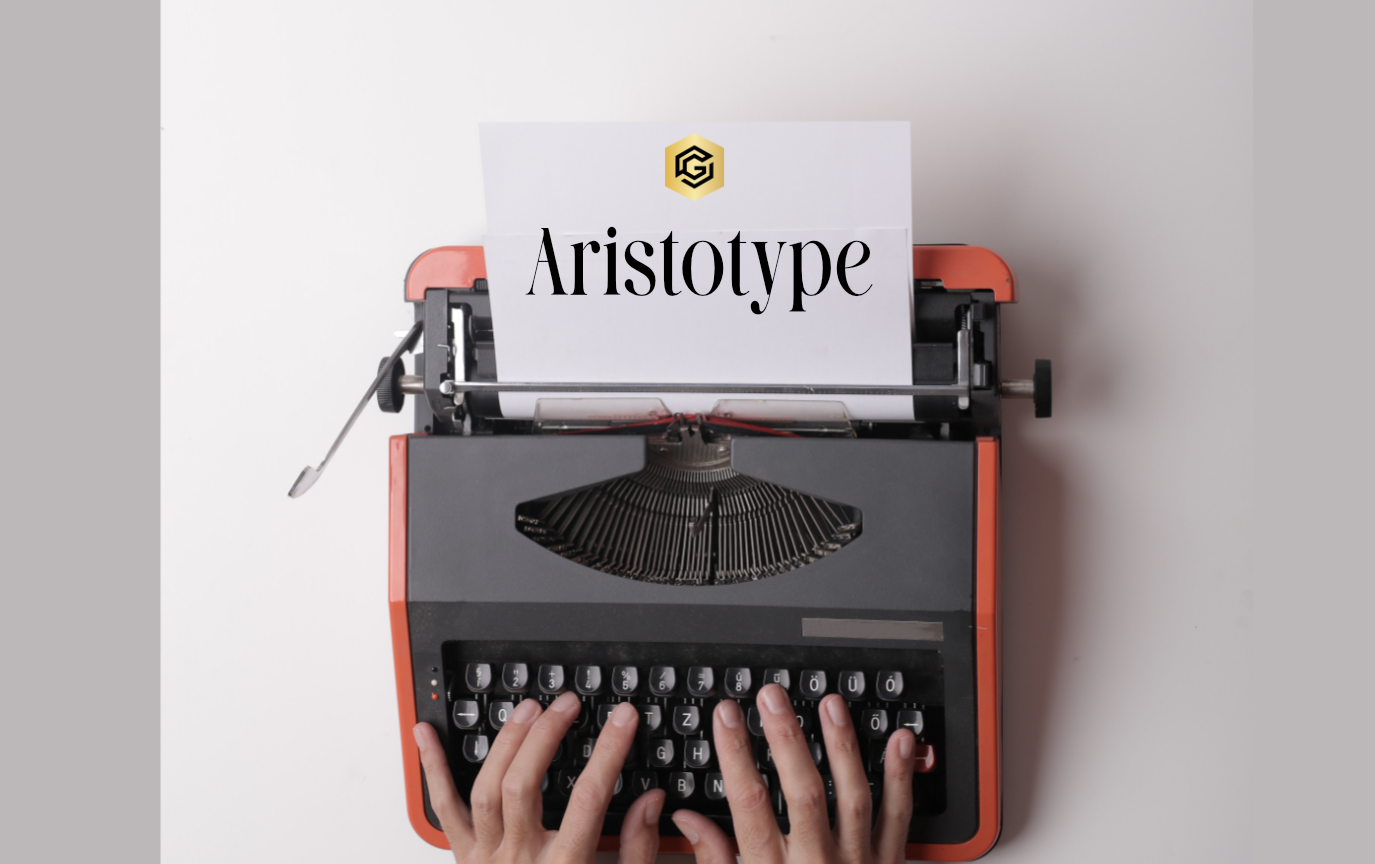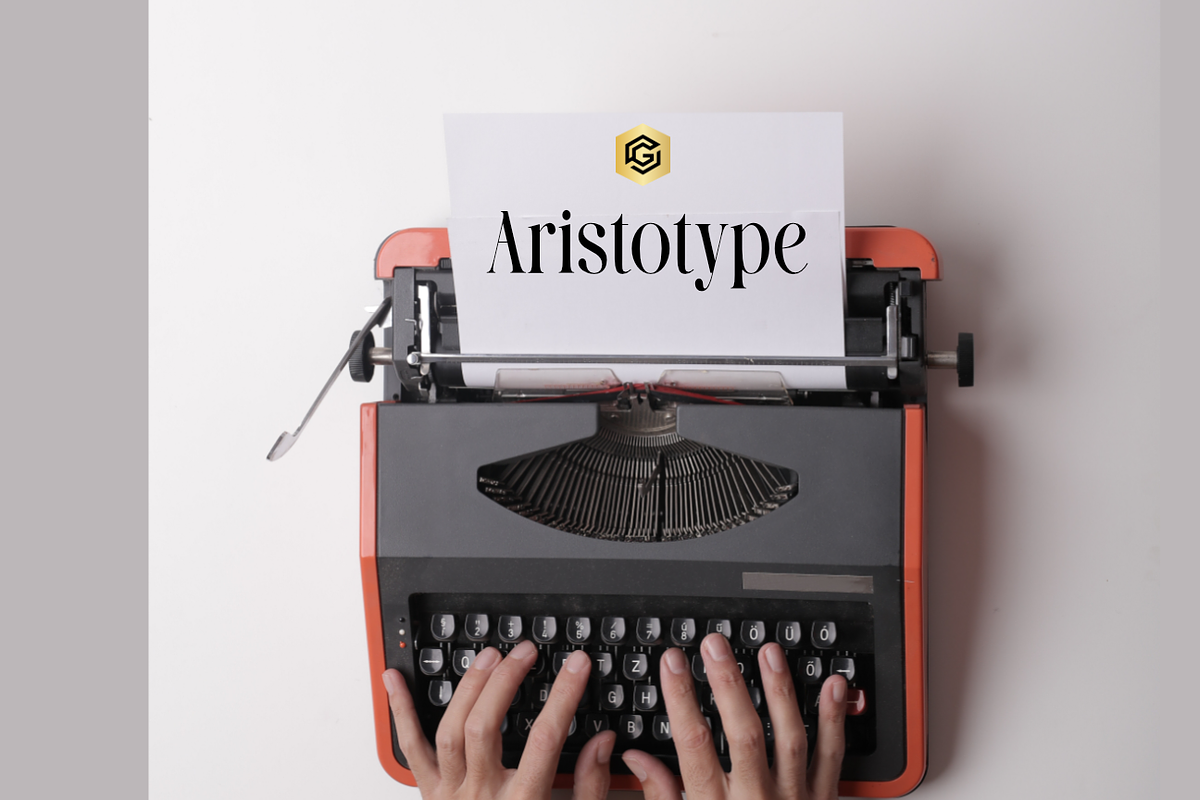
Aristotype Font
“Aristotype” is a timeless serif font that blends classic charm with contemporary design. Its meticulously crafted letterforms exude sophistication, enhancing both readability and visual appeal. Versatile and elegant, “Aristotype” adds character and distinction to a range of projects, from print to digital, while maintaining a touch of timeless grace and modernity.